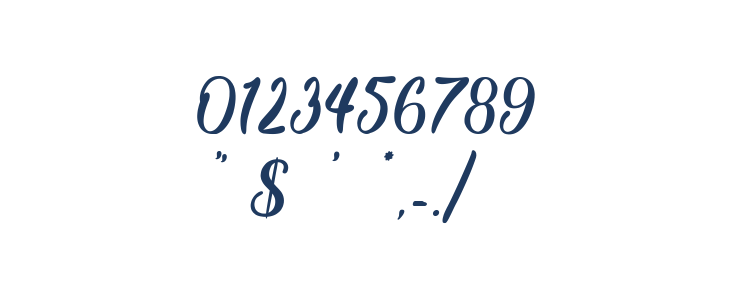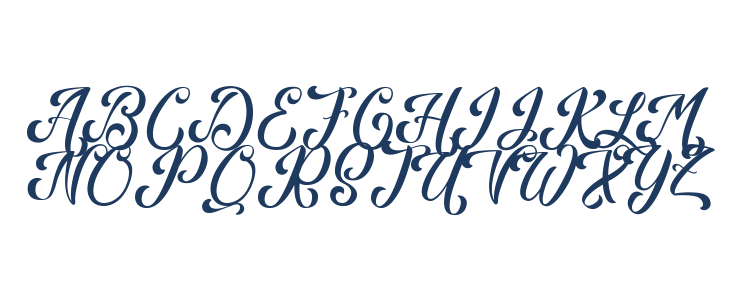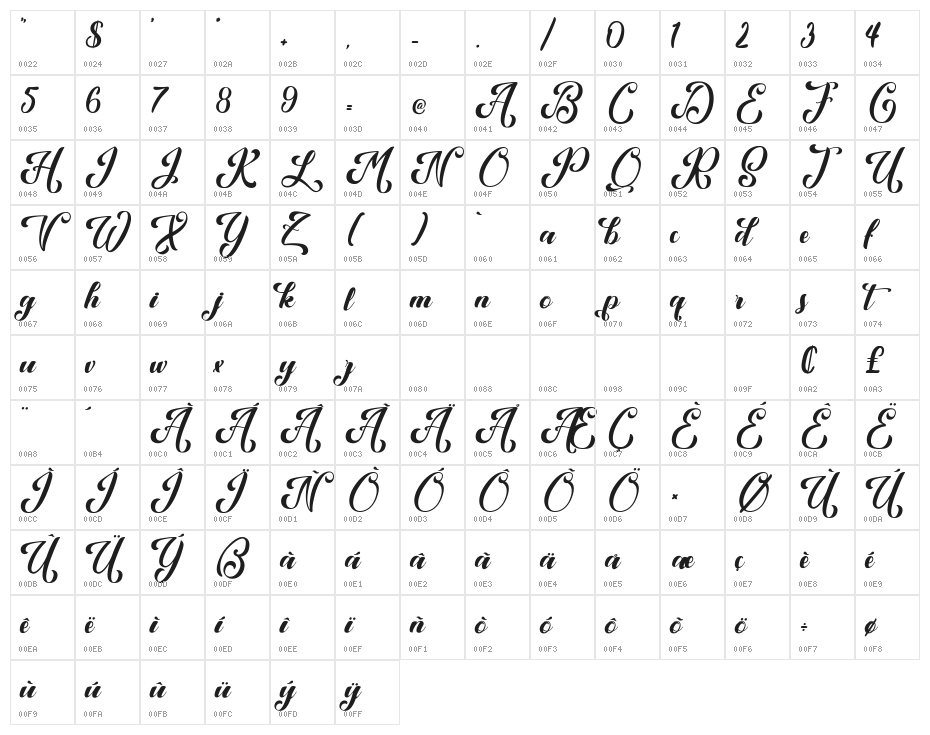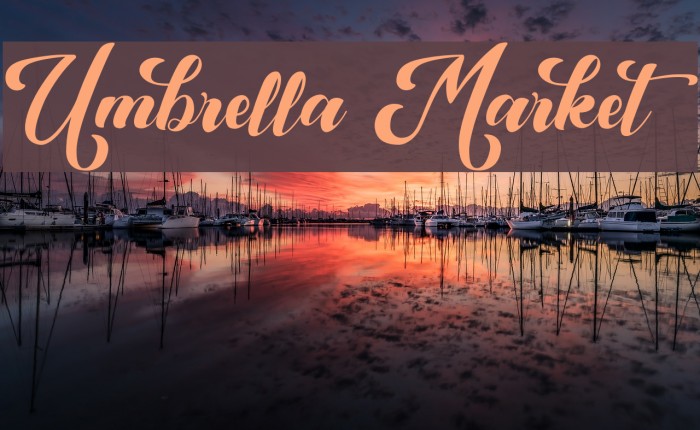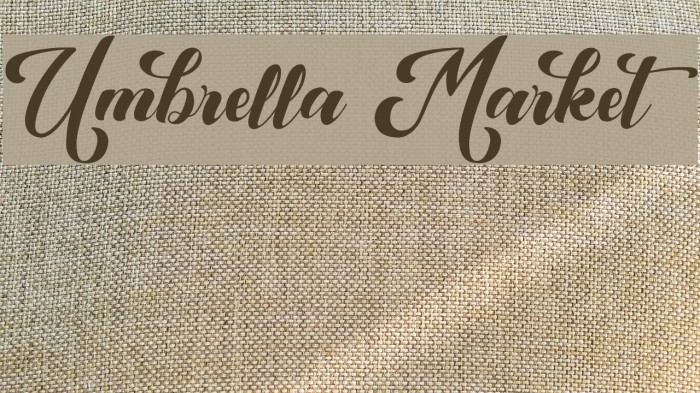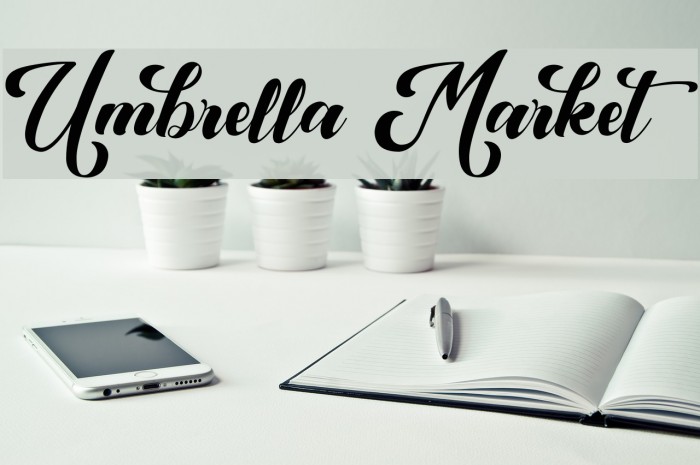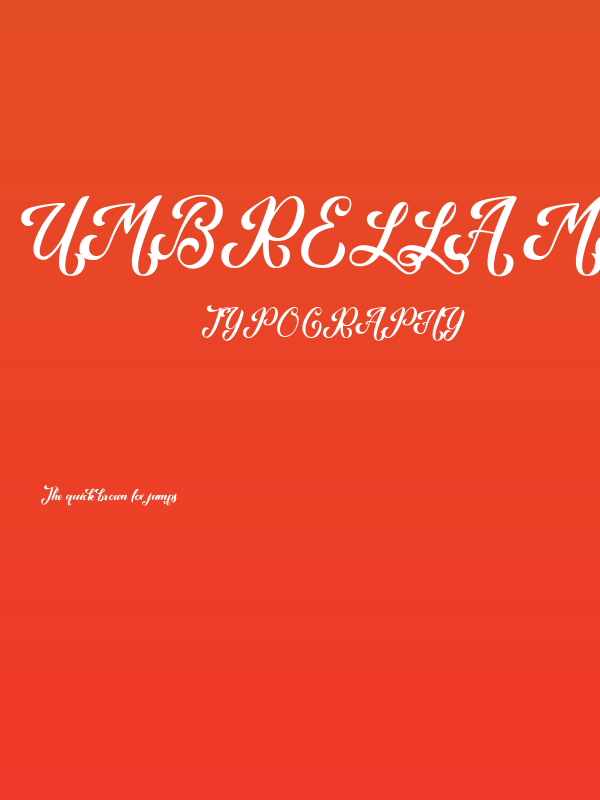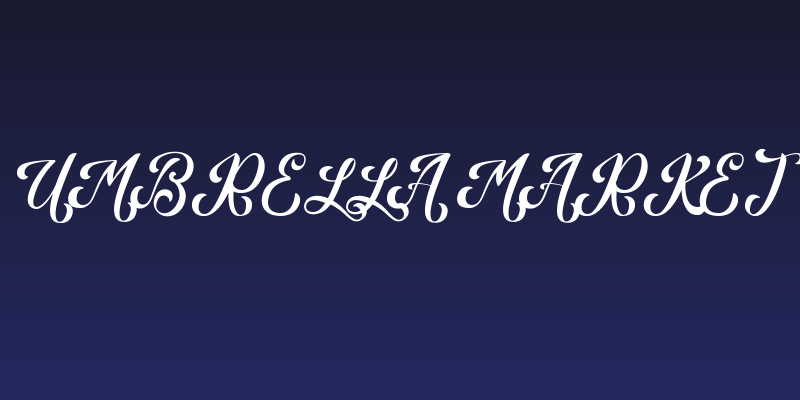
Umbrella Market Font
Umbrella Market Description
This font features a bold, flowing script style with elegant curves and flourishes. The uppercase letters exhibit a classic calligraphic influence, with sweeping lines and decorative elements that add a touch of sophistication. The lowercase letters maintain a consistent flow, enhancing readability while retaining an artistic flair. Numbers are designed with the same attention to detail, ensuring they blend seamlessly with the alphabet. Special characters are crafted to match the overall aesthetic, making this font versatile for various design needs. Its bold weight and high contrast between thick and thin strokes make it stand out, ideal for creating impactful designs.
| Proposed Projects | Ideal for wedding invitations, luxury branding, elegant packaging, and decorative headlines. |